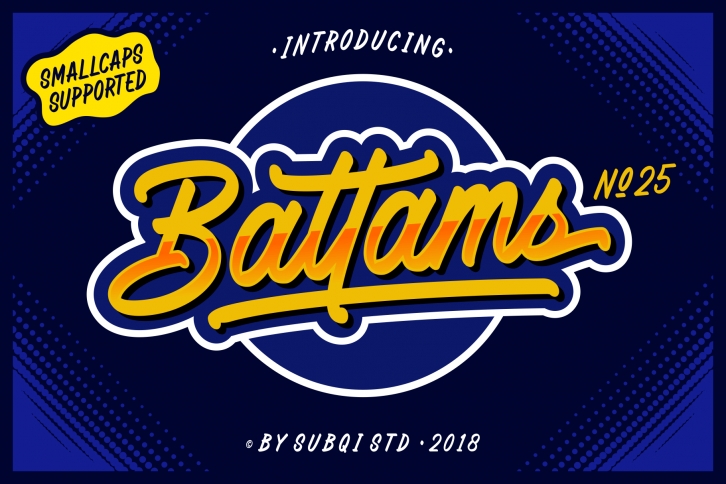
Battams No 25 Pro is a trendy and unique font with an authentic style. It was designed by Subqi Std and it's a great choice for creative people who need such a font. It was released on October 17, 2018 and the file size is 1.94 MB. Battams No 25 Pro will add an organic vibe to any design idea!